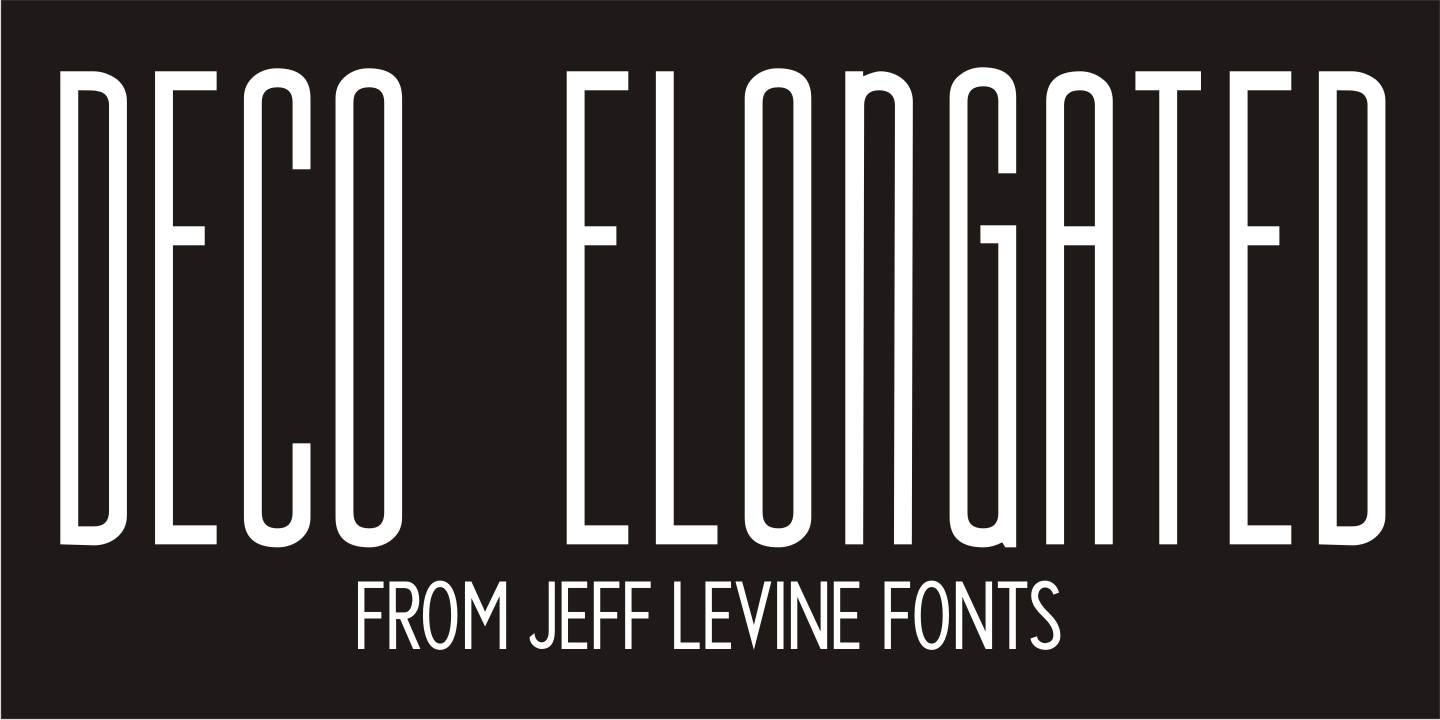
Deco Elongated
Tall and narrow in stature, elegant by design and Art Deco in style, Deco Elongated JNL is a wonderful type design for setting long lines of copy in less space. The retro elements of this font conjure up images of fine fashions, fancy nightclubs and big band music…
Deco Elongated JNL Regular by Jeff Levine Fonts